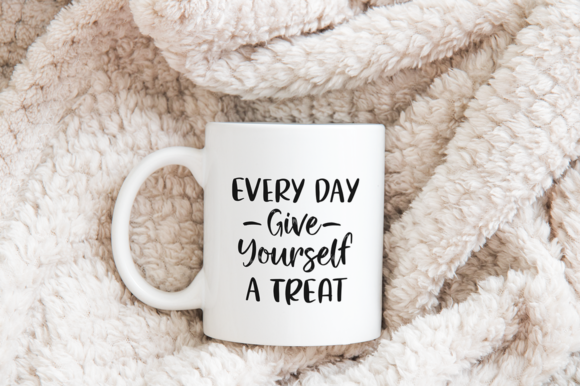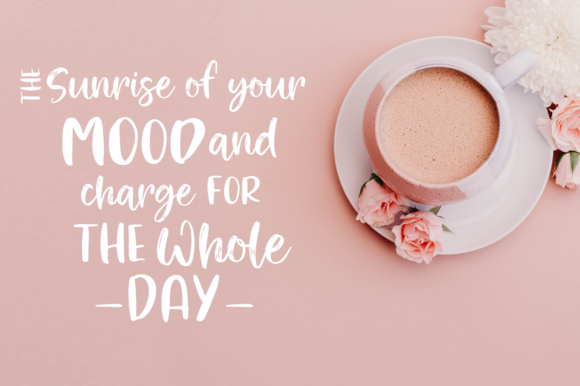
Tiny Love Duo Font
db-ku.com - Script & Handwritten -- The Tiny Love is an elegant font duo. It comes in a script and sans version which can be combined perfectly.